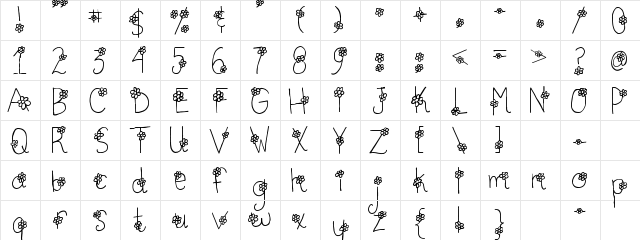
AMC_Daisy Doodle Regular
Design Context for AMC_Daisy Doodle Typeface
AMC_Daisy Doodle is a composed and adaptable typeface that performs quietly and consistently across a wide range of design contexts.